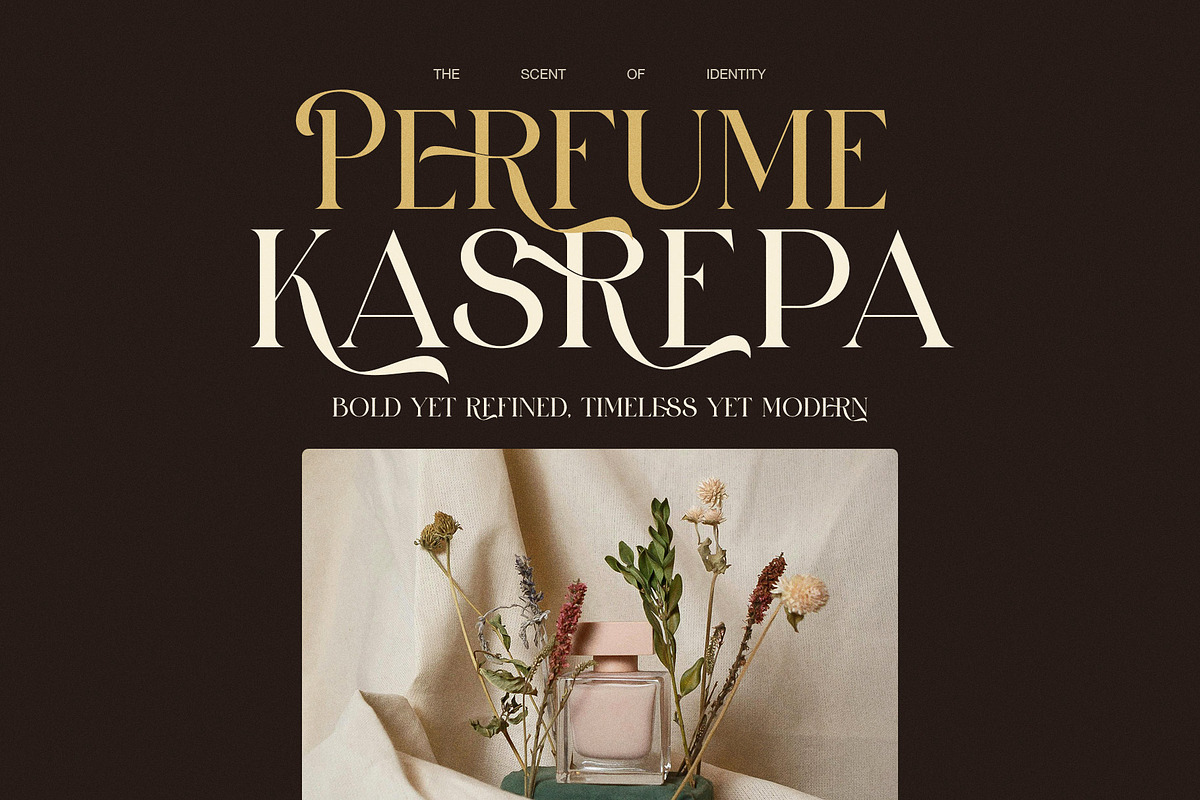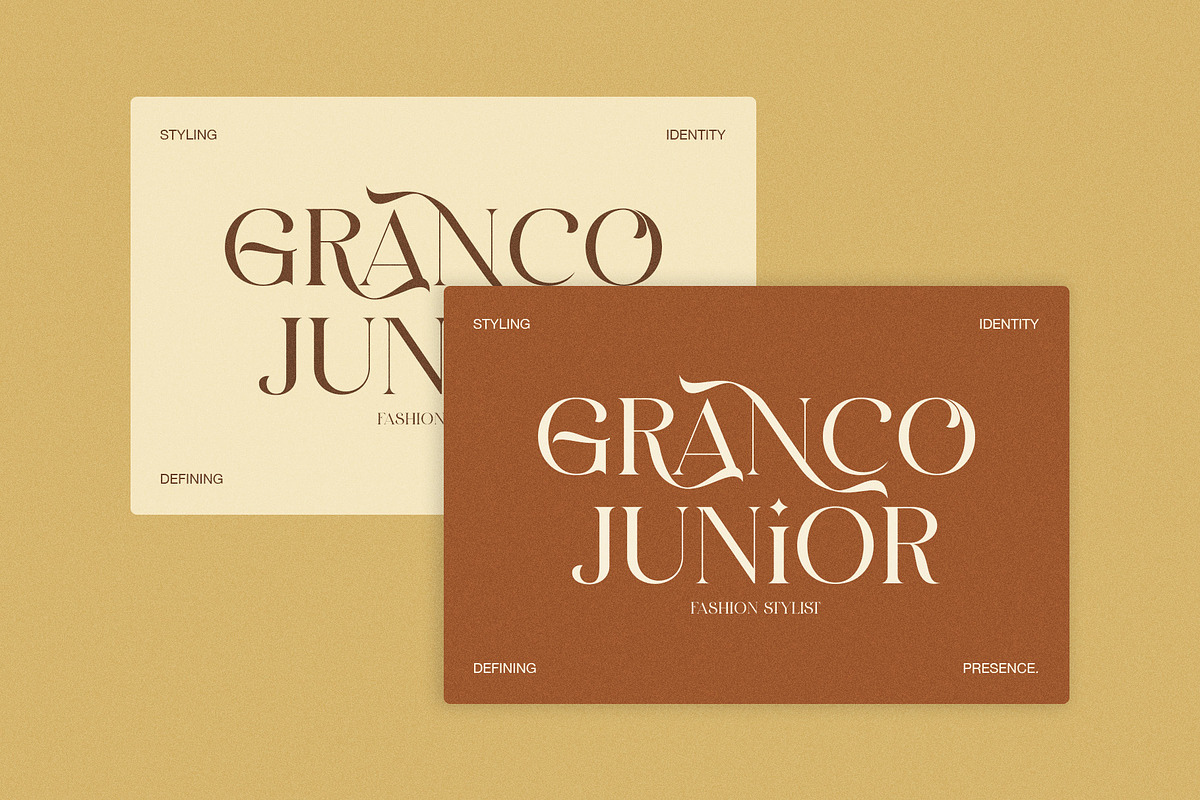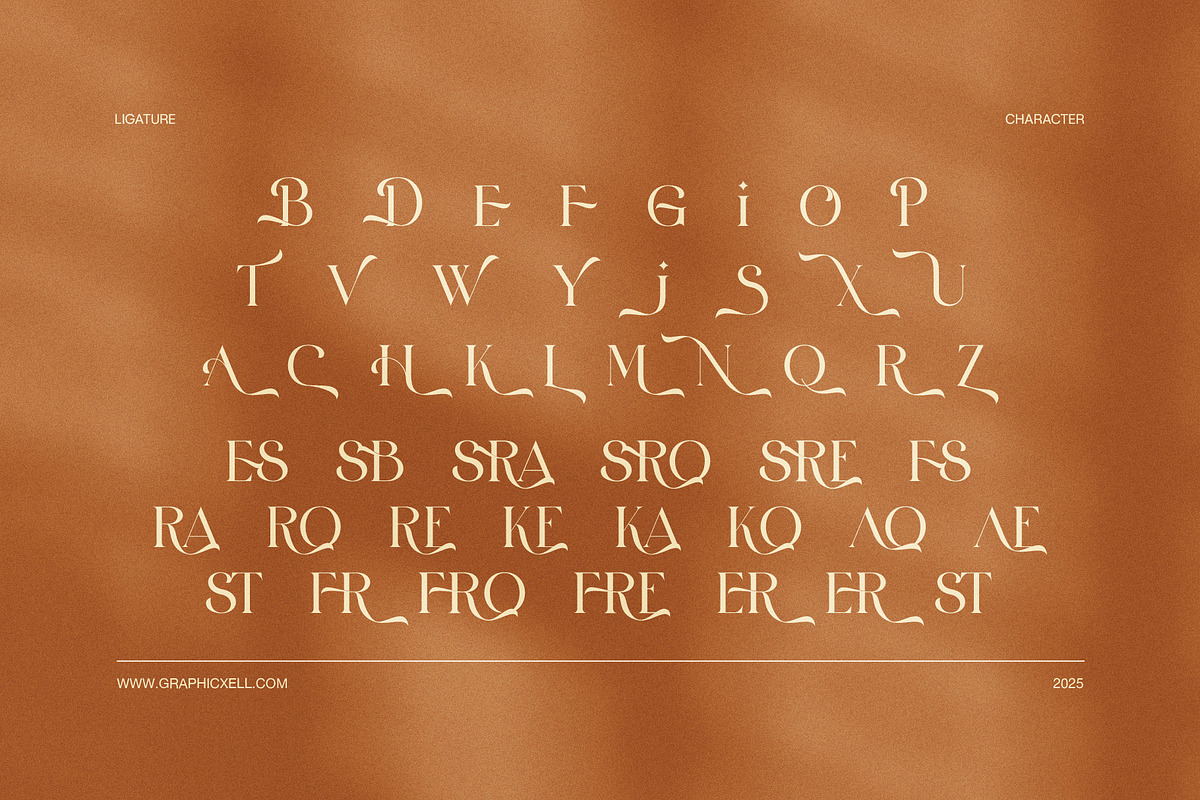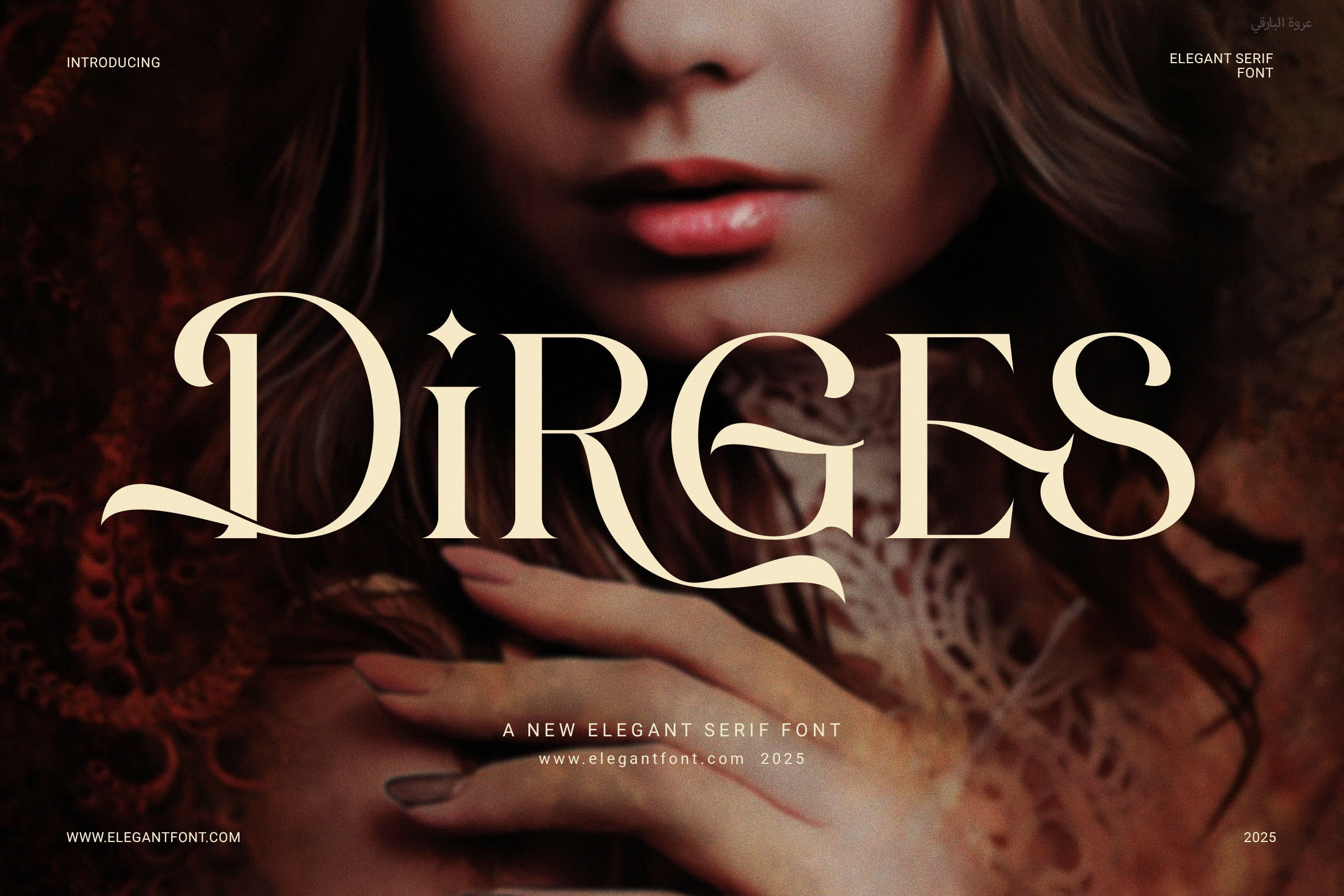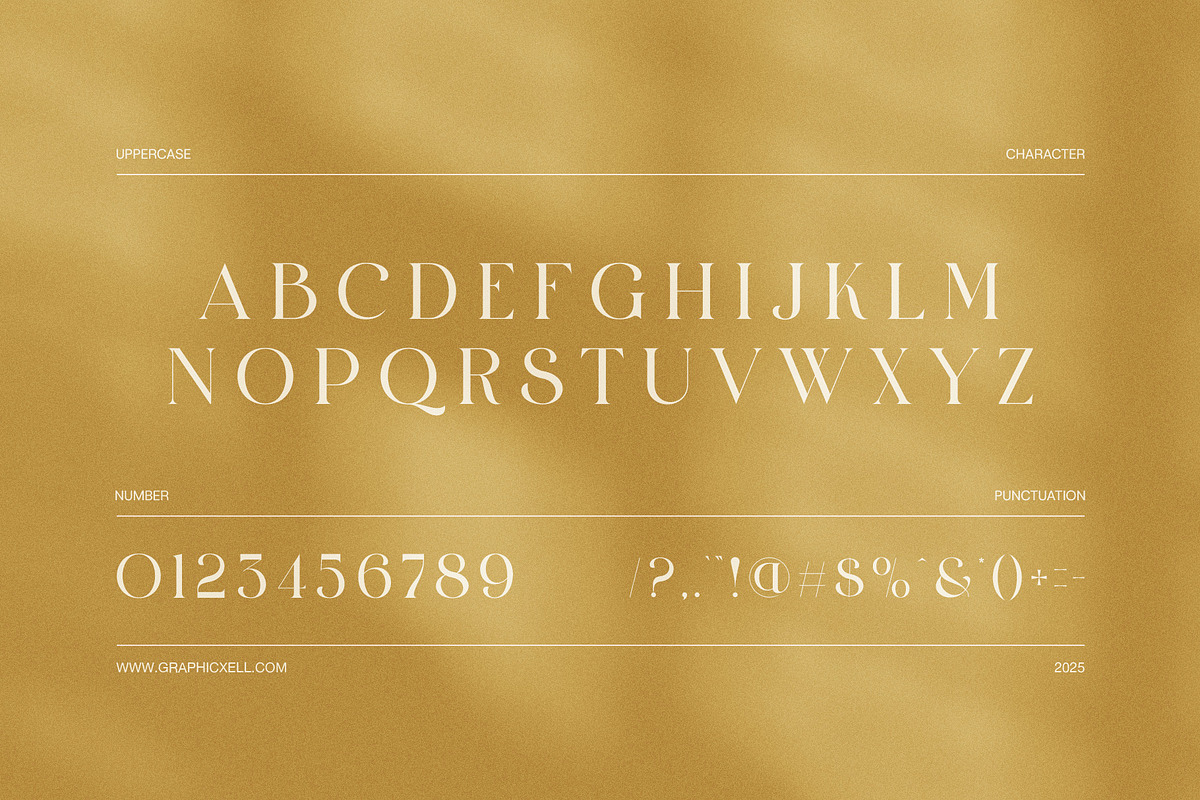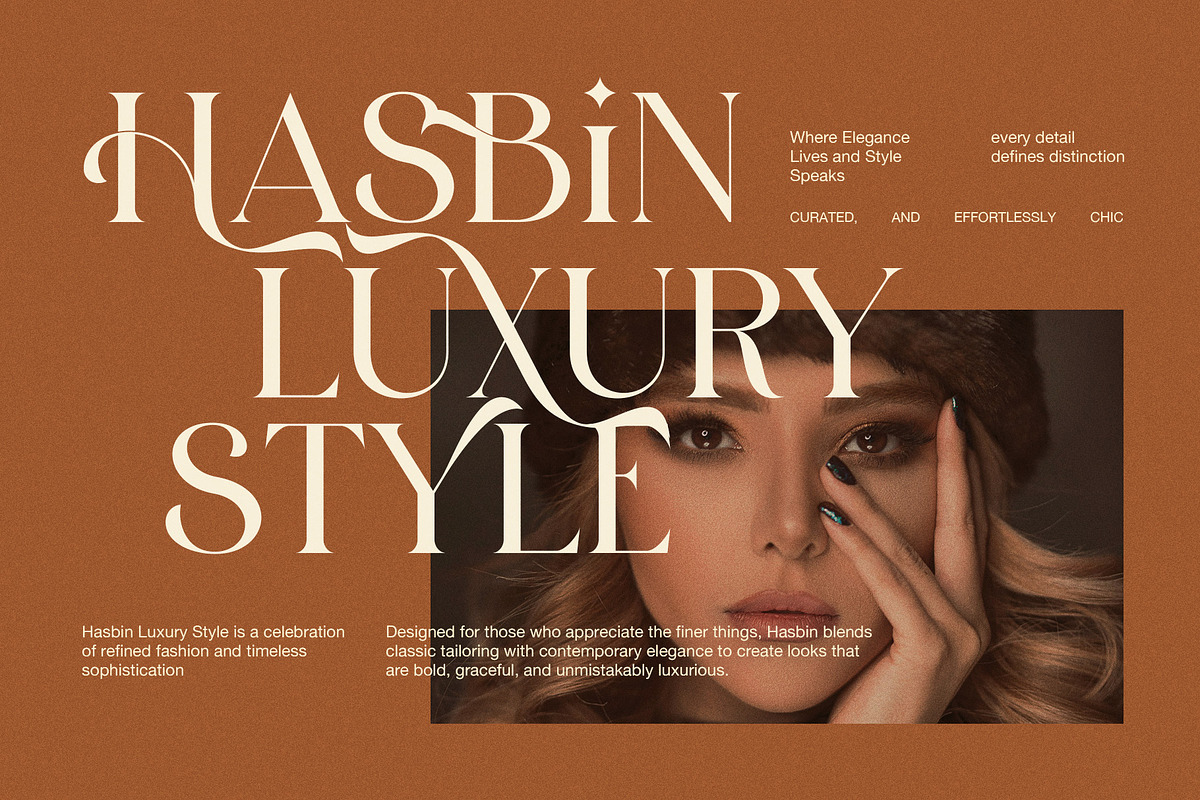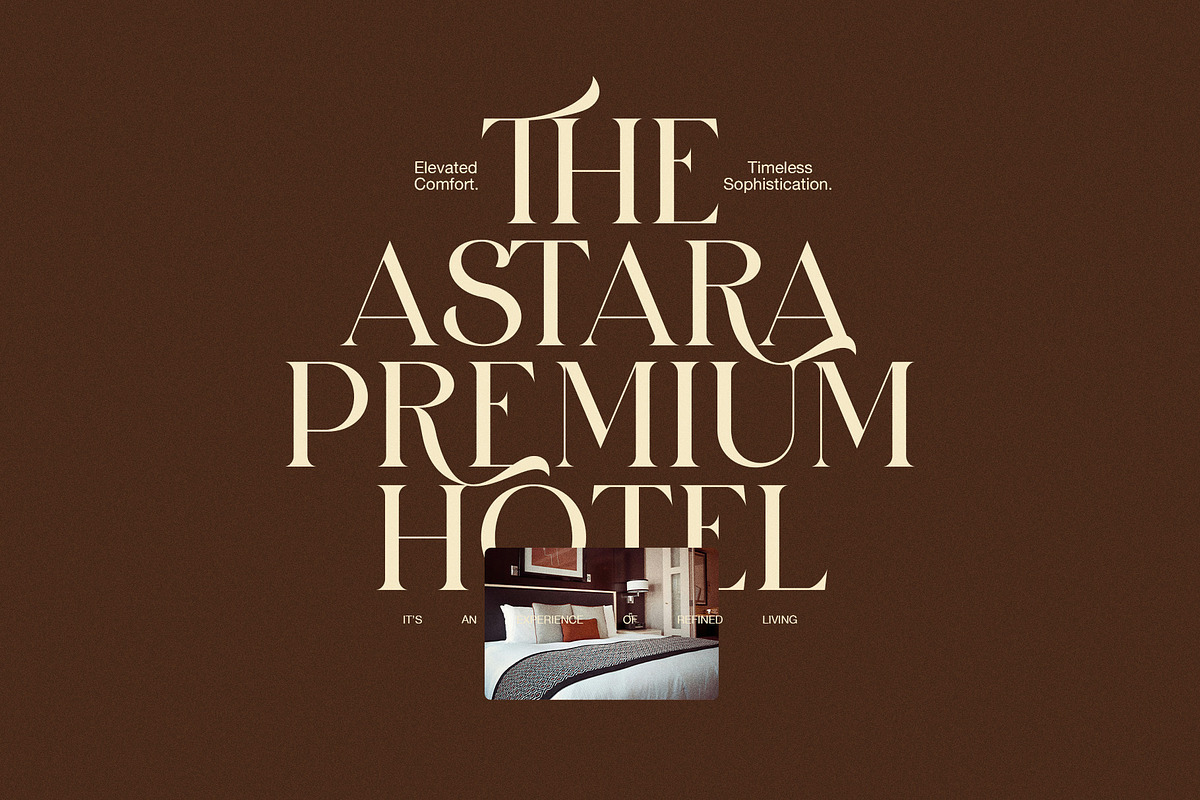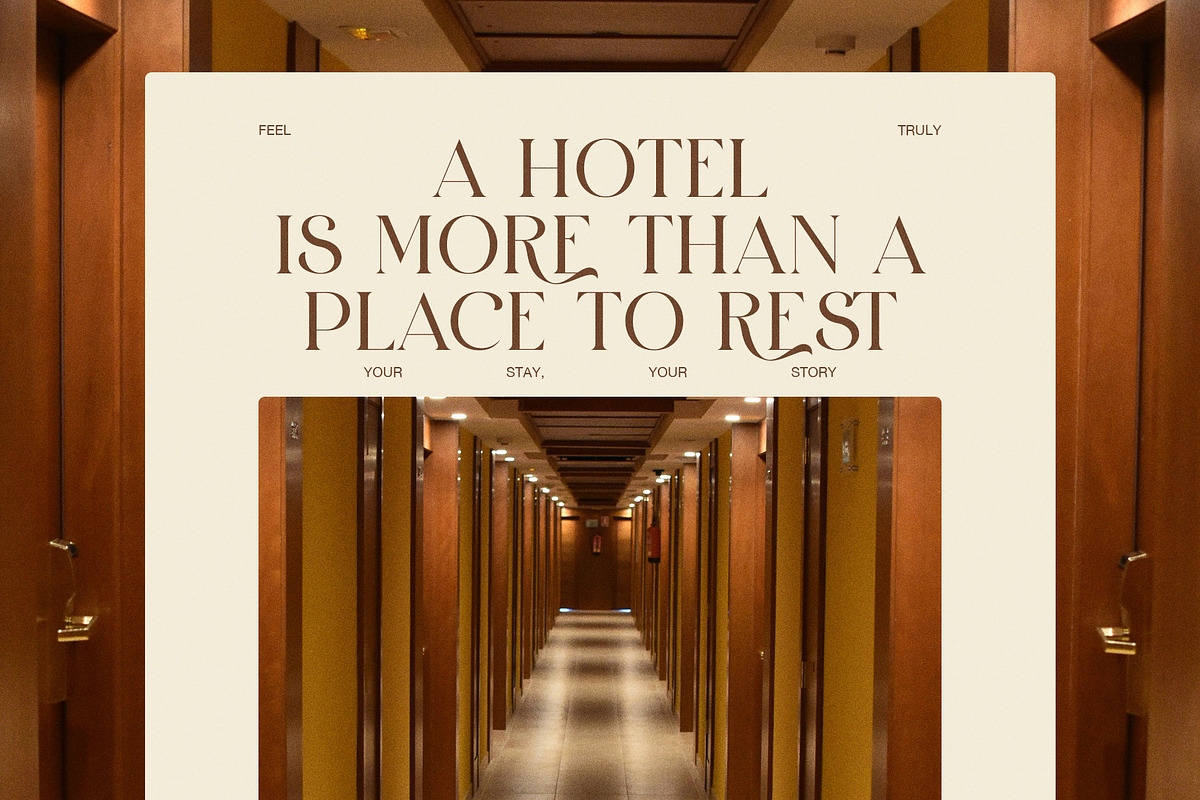
Dirges Elegant Serif Font
Dirges – Elegant Serif Font for Modern & Timeless Designs
Dirges is a modern serif font designed to bring class and clarity to any creative work. It features thin strokes, balanced shapes, and smooth lines that look great in both print and digital use. Because of its clean and elegant style, Dirges fits a wide range of branding needs.
This font is more than just stylish—it’s also functional. With built-in ligatures and proportional spacing, every word feels even and smooth. These features help your text stand out while keeping it easy to read. Whether you’re creating a logo or a website layout, Dirges brings beauty and order together.
Also, Dirges works well across many design types. For example, you can use it for fashion branding, product packaging, or editorial layouts. At the same time, it’s ideal for wedding invitations, social media posts, and print ads. No matter the platform, this font adds a clear and elegant touch.
Because of its soft, simple look, many designers prefer Dirges when working on projects that need a modern yet classic feel. It also pairs well with other font styles, giving you more freedom in your design.
✅ Perfect Use Cases for Dirges:
Boutique branding and logos
Modern websites and online shops
Product labels and packaging
Magazine layouts and lookbooks
Elegant invitations and cards
Fashion ads and promo designs
Social media posts and banners
Dirges gives your design a soft, classy tone without losing clarity. Thanks to its mix of beauty and function, it works in many projects—big or small.